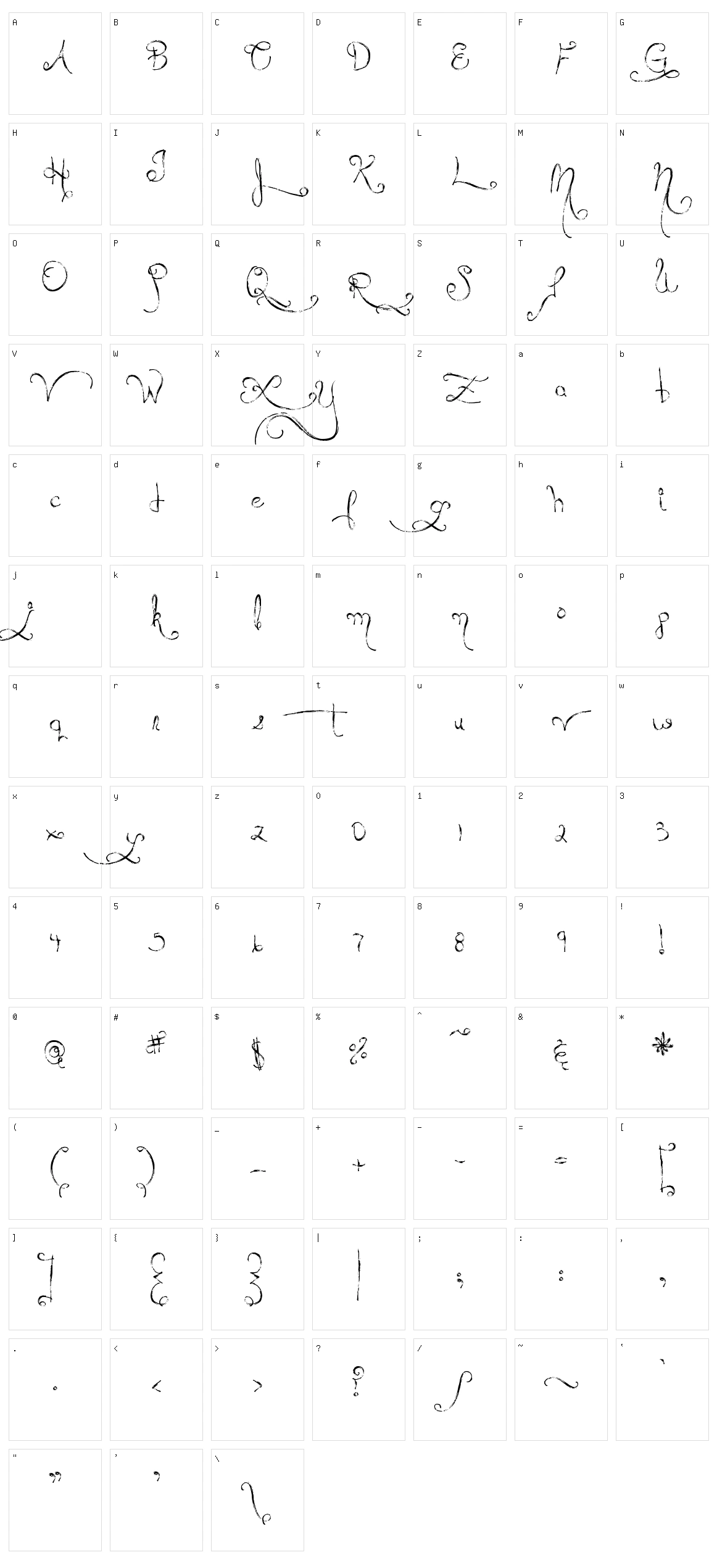
Extra Symbol Alt Codes:
Alt + 0164 = Crown1
Alt + 0176 = Crown2
Alt + 0133 = heart1
Alt + 0134 = heart2
Alt + 0135 = heart3
Alt + 0185 = flower1
Alt + 0178 = flower2
Alt + 0179 = flower3
Alt + 0188 = swirl1
Alt + 0189 = swirl2
Alt + 0190 = swirl3